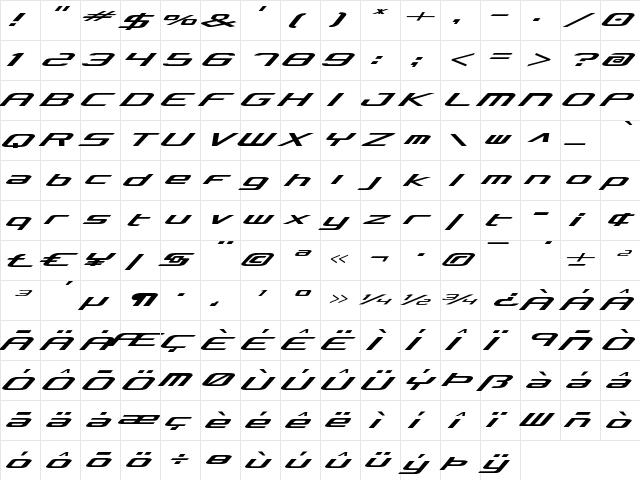
Concielian Classic Expanded Expanded
Design Context for Concielian Classic Expanded Typeface
Concielian Classic Expanded wears its vintage influences proudly, with letterforms that recall mid-century signage, classic packaging, and nostalgia-driven design.
Font Pairing: Combine Concielian Classic Expanded with a simple slab or neutral sans — period-accurate companions reinforce the vintage feel without competing for attention.
Pro Tip: Lean into Concielian Classic Expanded's period character by pairing it with aged paper textures, muted colour palettes, and vintage illustration styles.